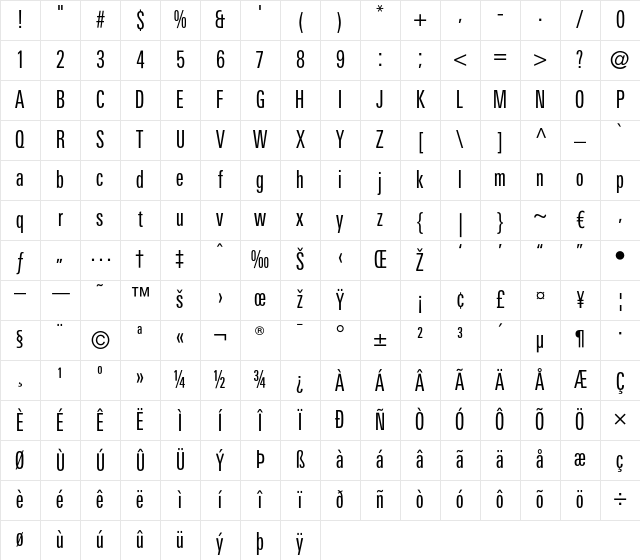
LTUnivers 410 CompRegular
Style: 410 CompRegular
Complete LTUnivers 410 CompRegular glyph index. Displaying only characters natively supported by LTUnivers 410 CompRegular font.
Design Context for LTUnivers
LTUnivers is a composed and adaptable typeface that performs quietly and consistently across a wide range of design contexts.